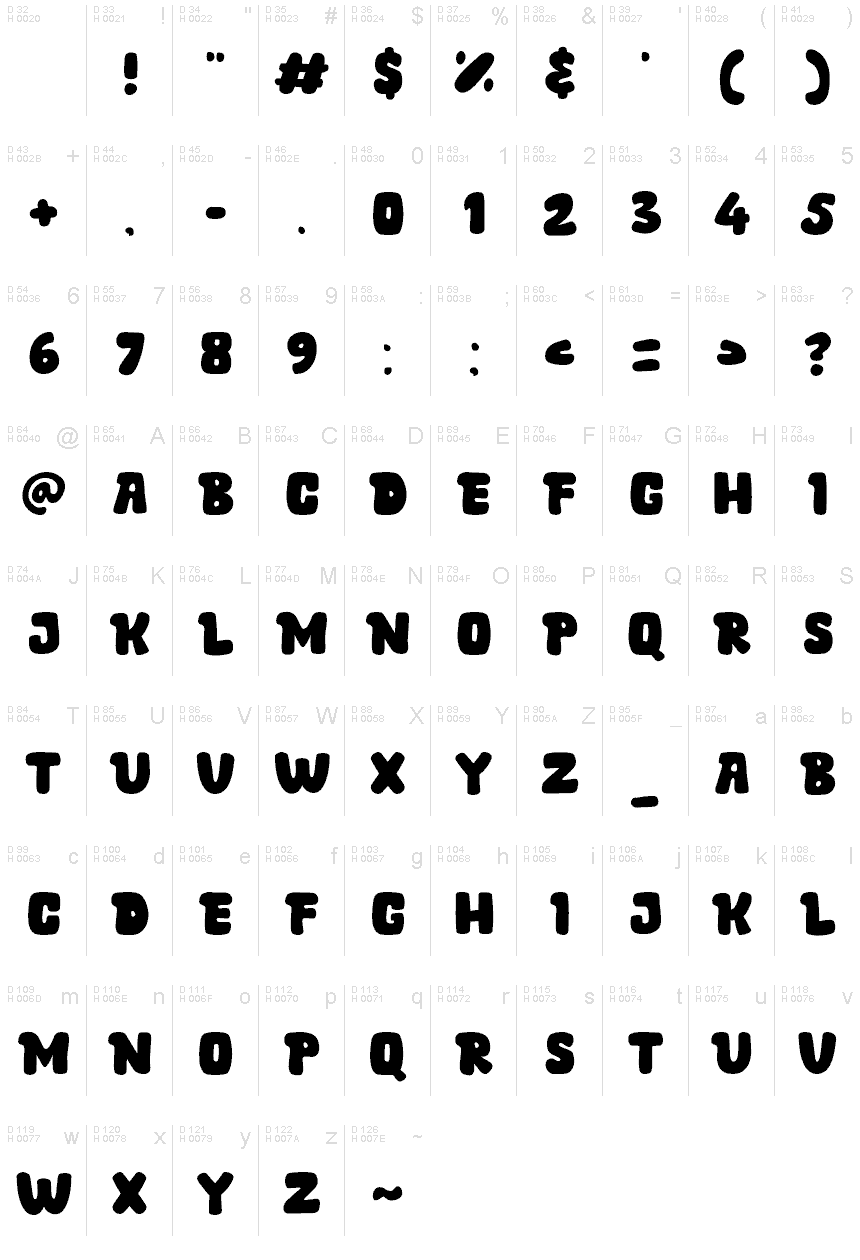
Garden Farm
Garden Farm font by MJType is a free cartoon display font with bold characters that are spacious and jumpy, embracing a casual feel. Its geometric letter shapes feature organic edges that mimic nature in a fun and friendly way. Excite young readers with words animated by this typeface as the design takes inspiration from the swinging 60s.
Create upbeat posters about healthy living, package all-natural homemade soap, or advertise local farms opening their doors to visitors. Other uses include children’s books, educational brochures for elementary schools, birthday cards with cute messages, logotypes for children’s brands and schools; labels for fruits or vegetables; billboards signs; and more.